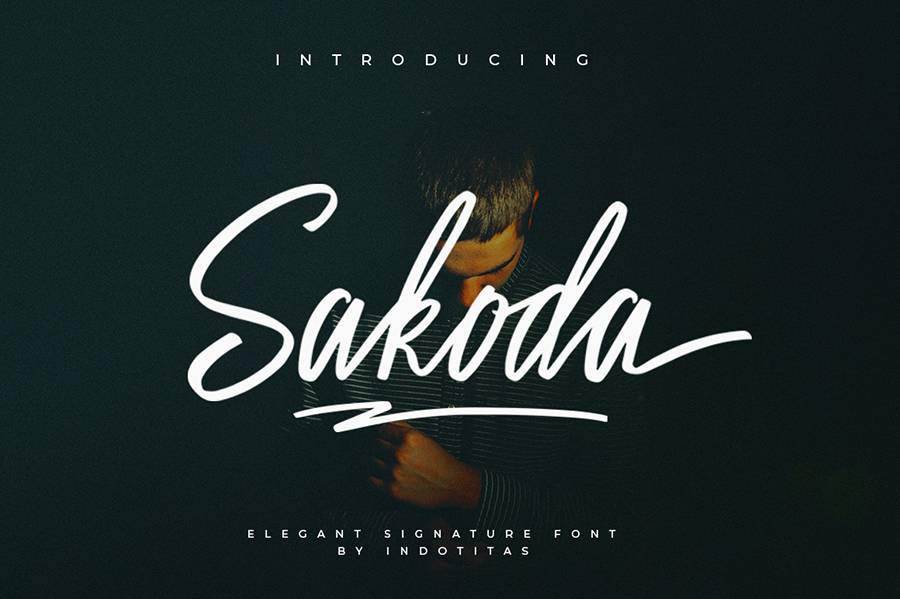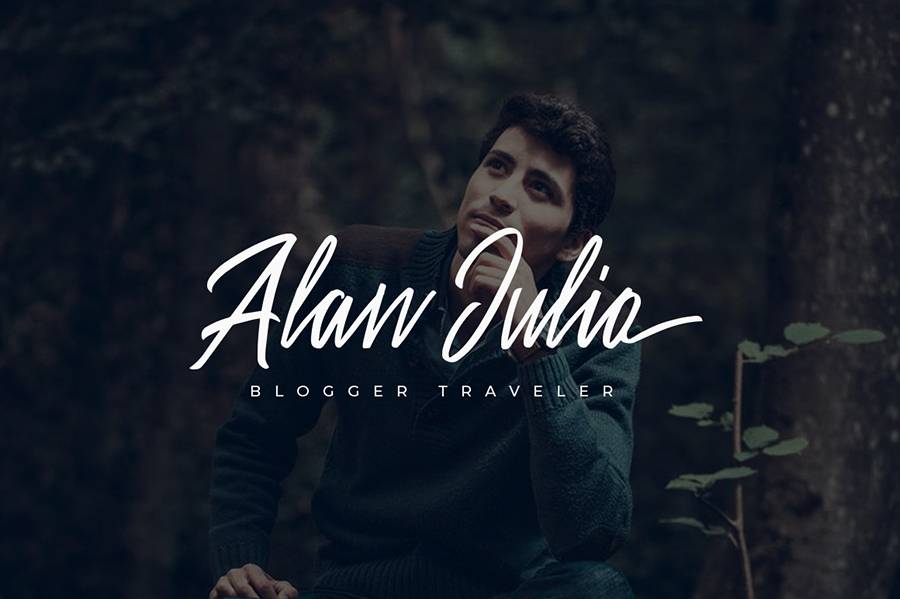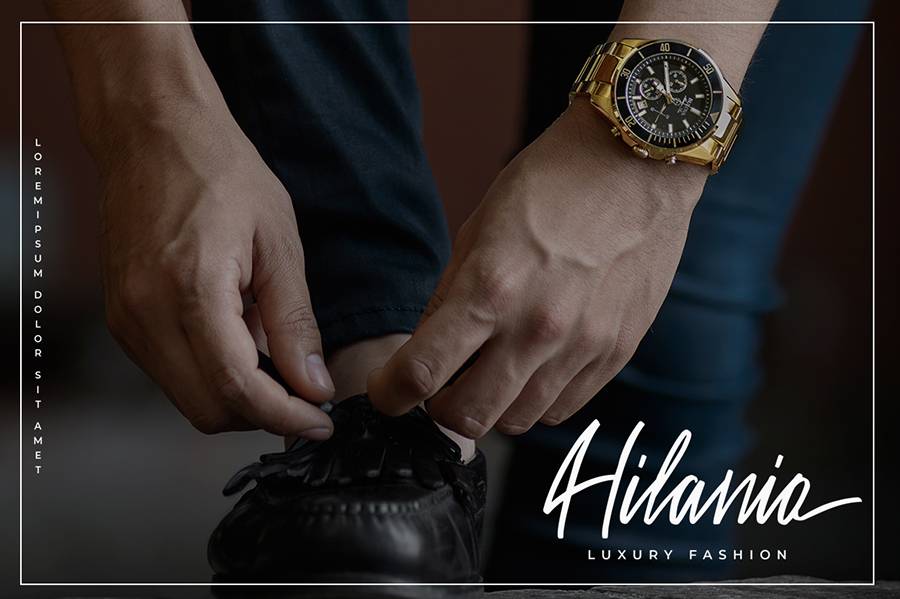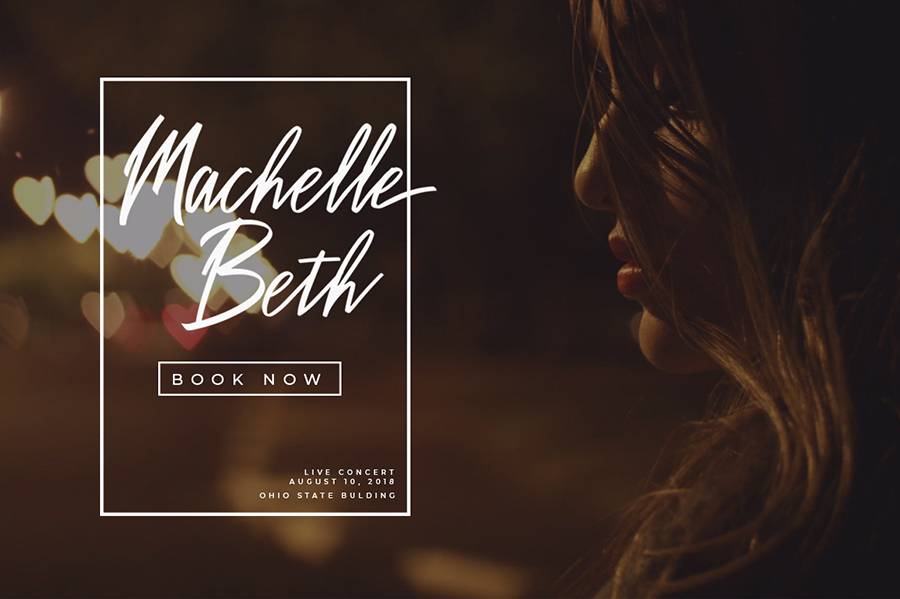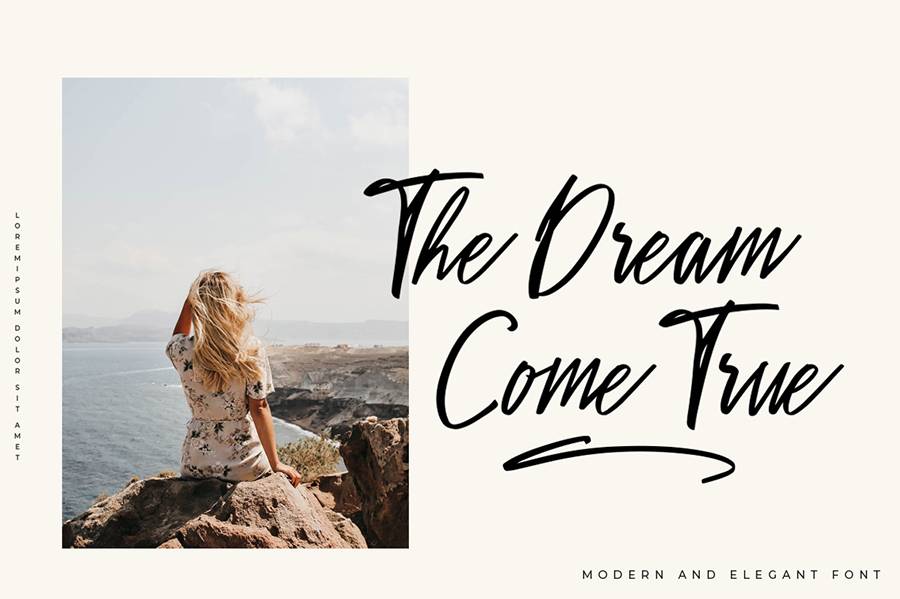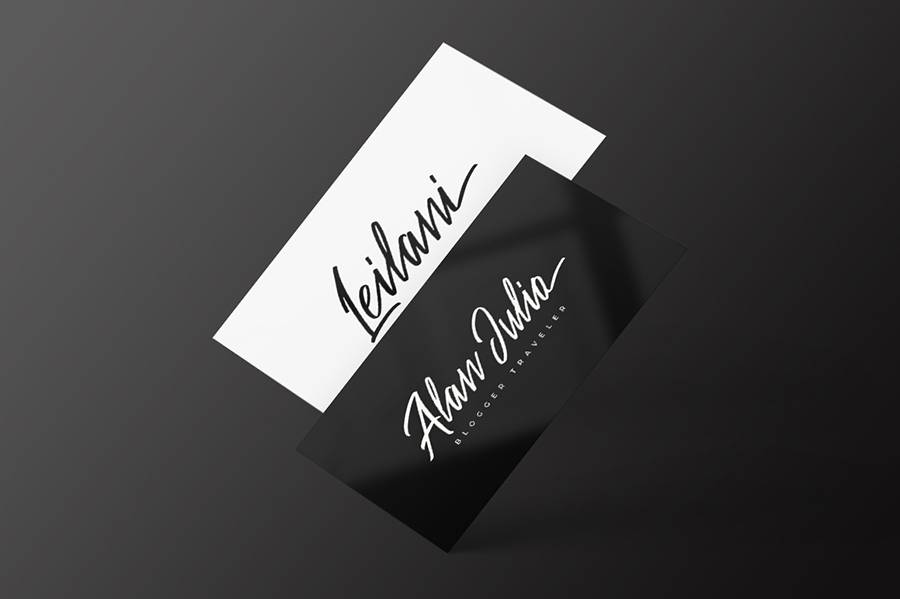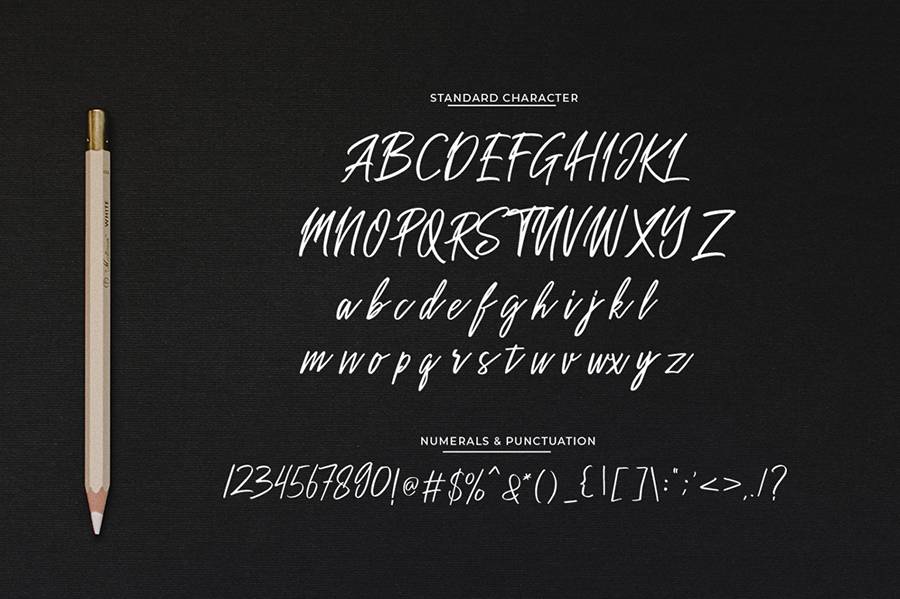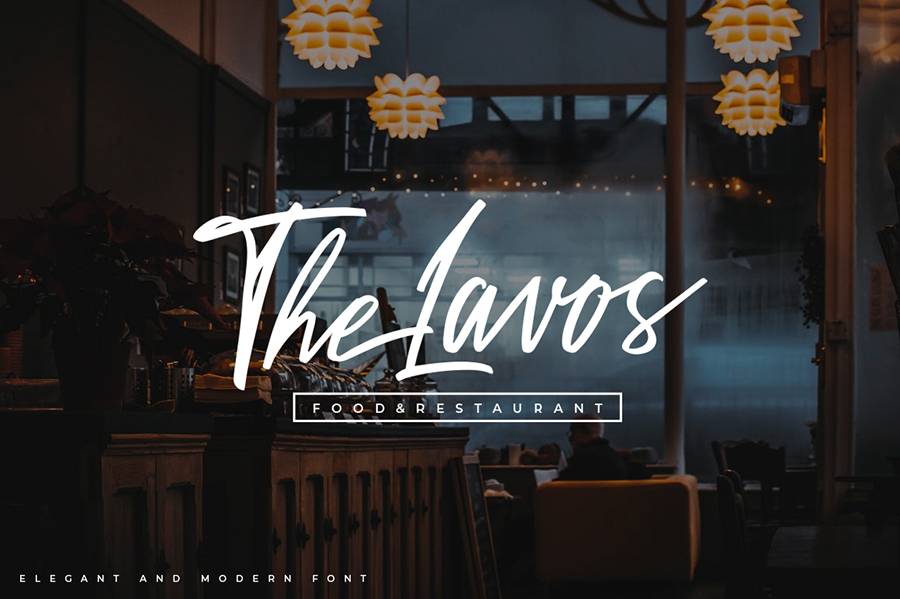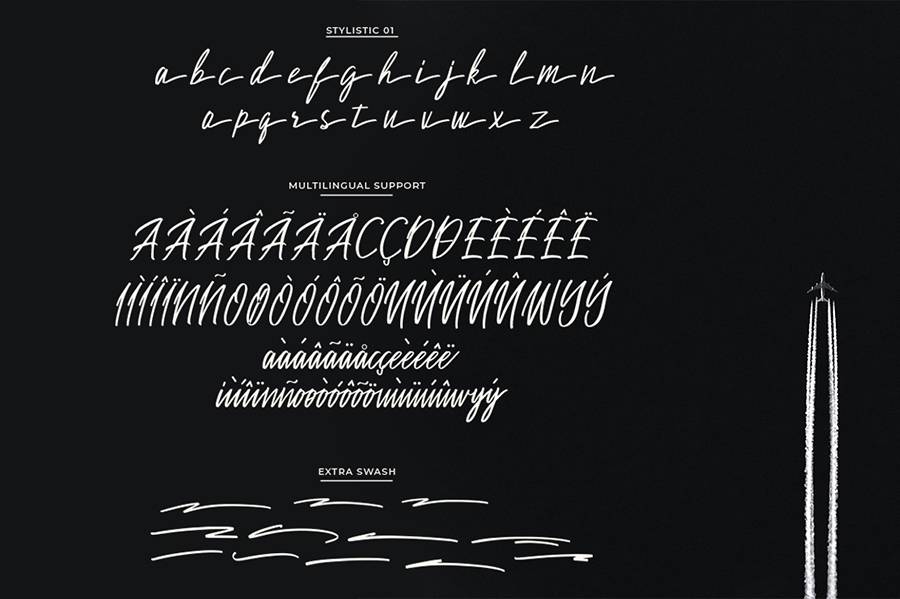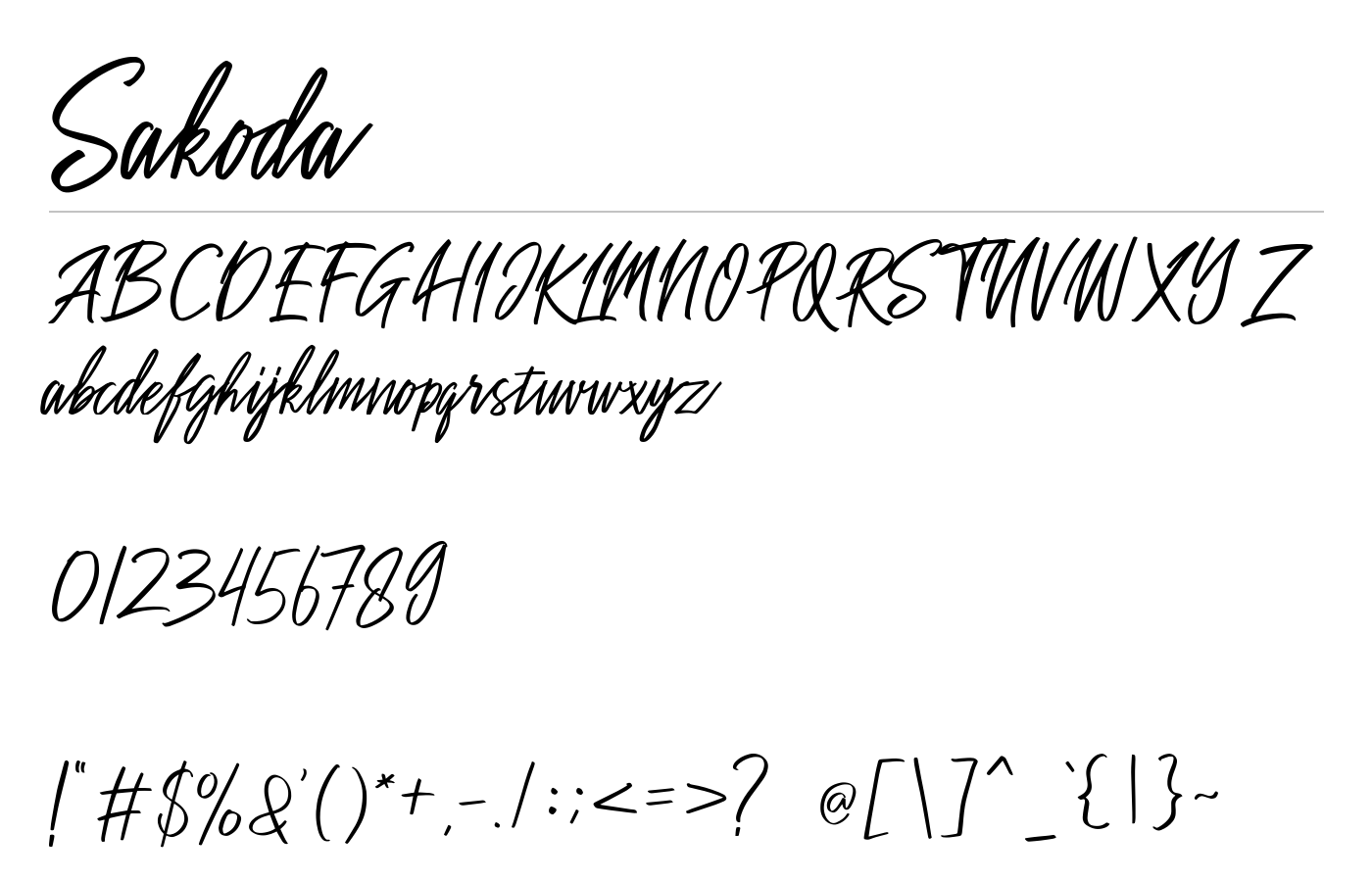
Sakoda Signature Script is a graceful and modern script font that mimics stylish, natural handwriting with smooth, flowing strokes and a slightly casual yet elegant feel. Its slender, slightly condensed letterforms and consistent stroke weight make it perfect for adding a personal, sophisticated touch to logos, invitations, and branding that seek a chic, approachable vibe. This font works especially well for fashion, lifestyle, and creative projects where a refined yet friendly handwritten style is desired.
Sakoda Signature Script Font
About Sakoda Signature Script Font
| Font family | Sakoda Signature Script Font |
| Designer | Indotitas Studio |